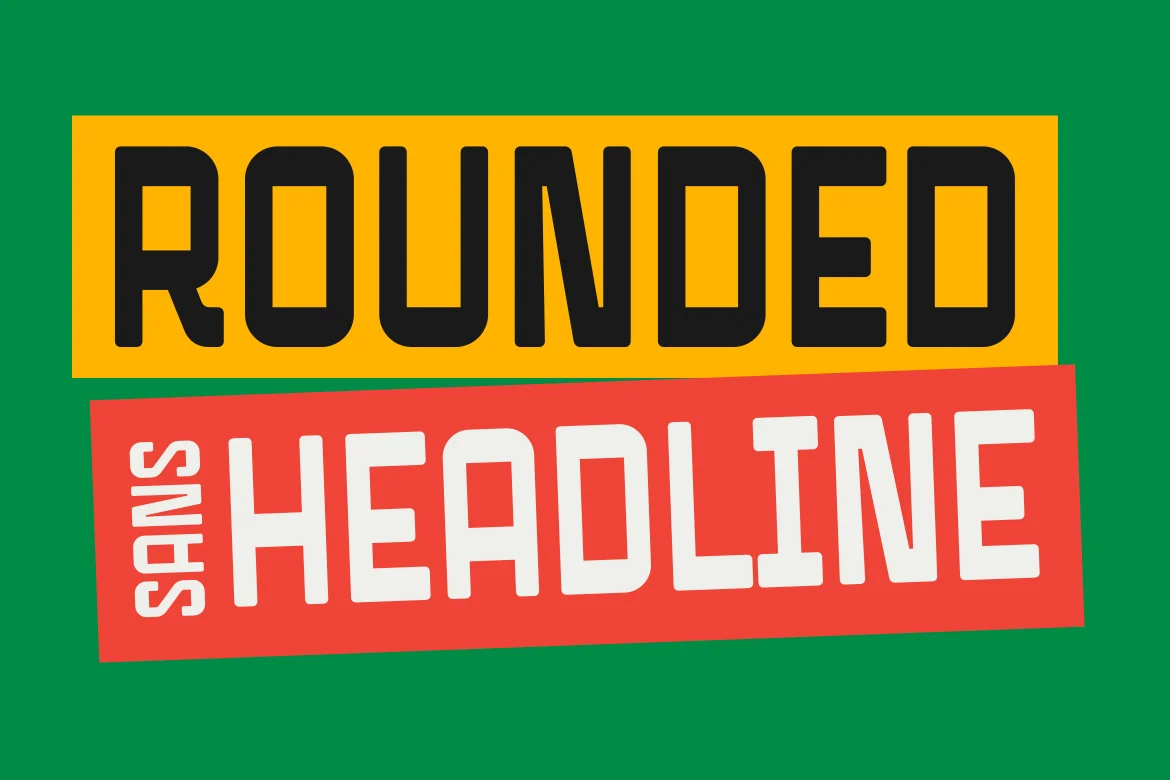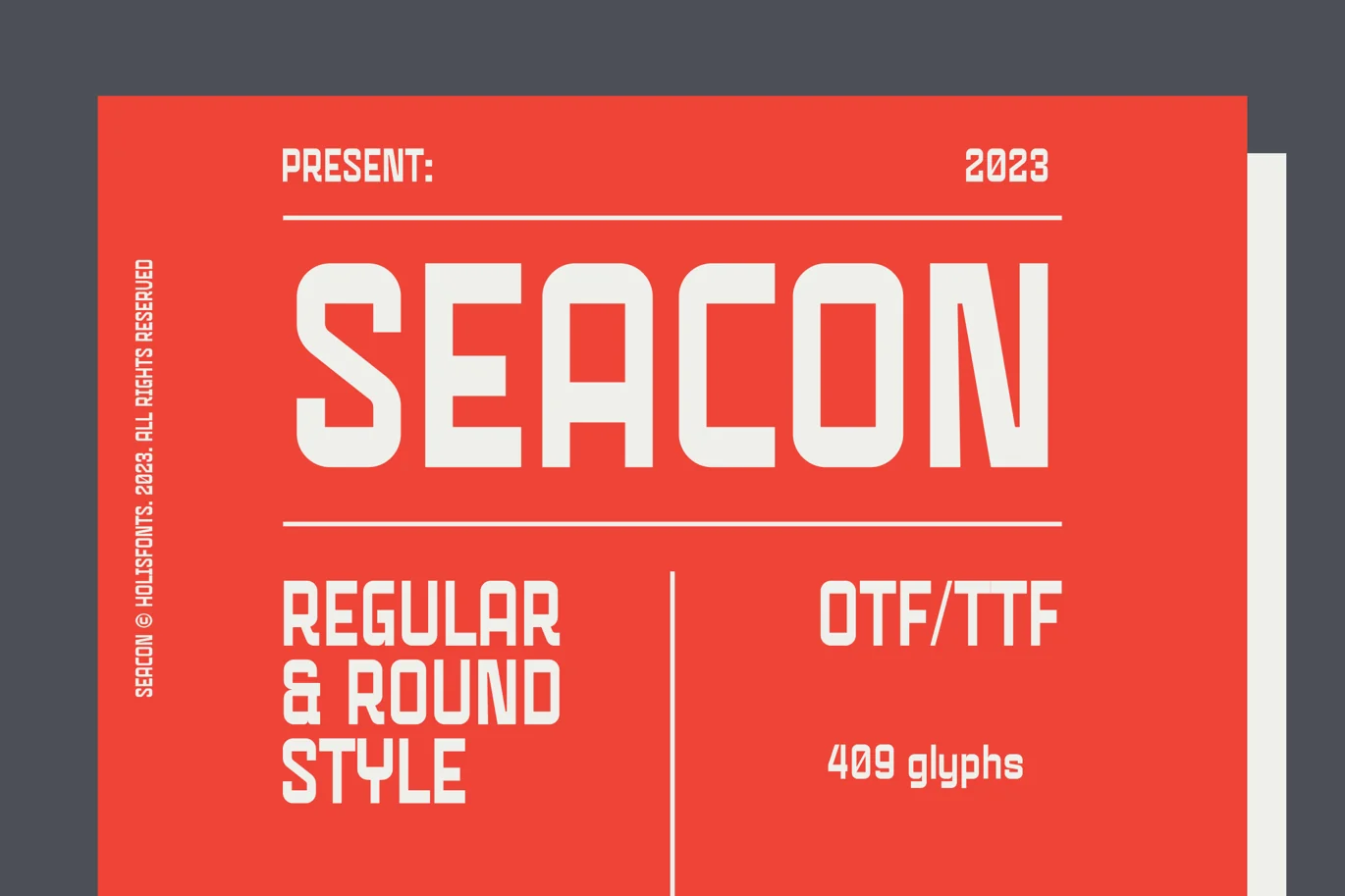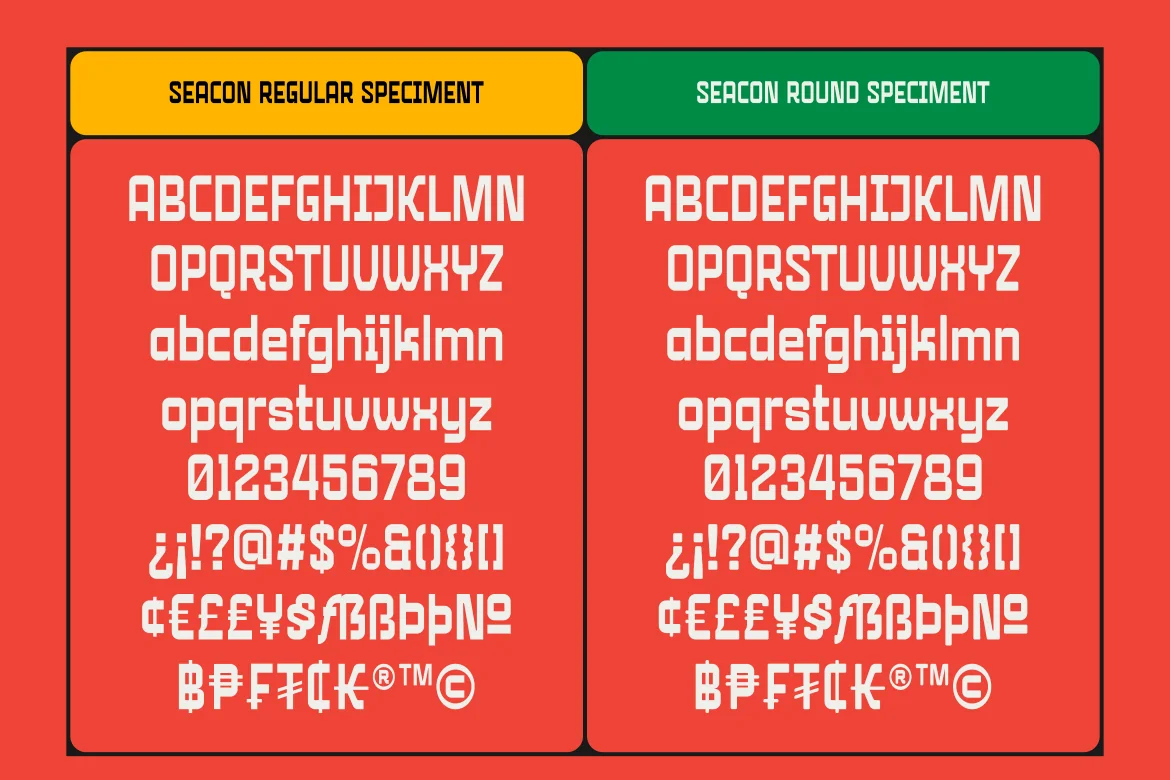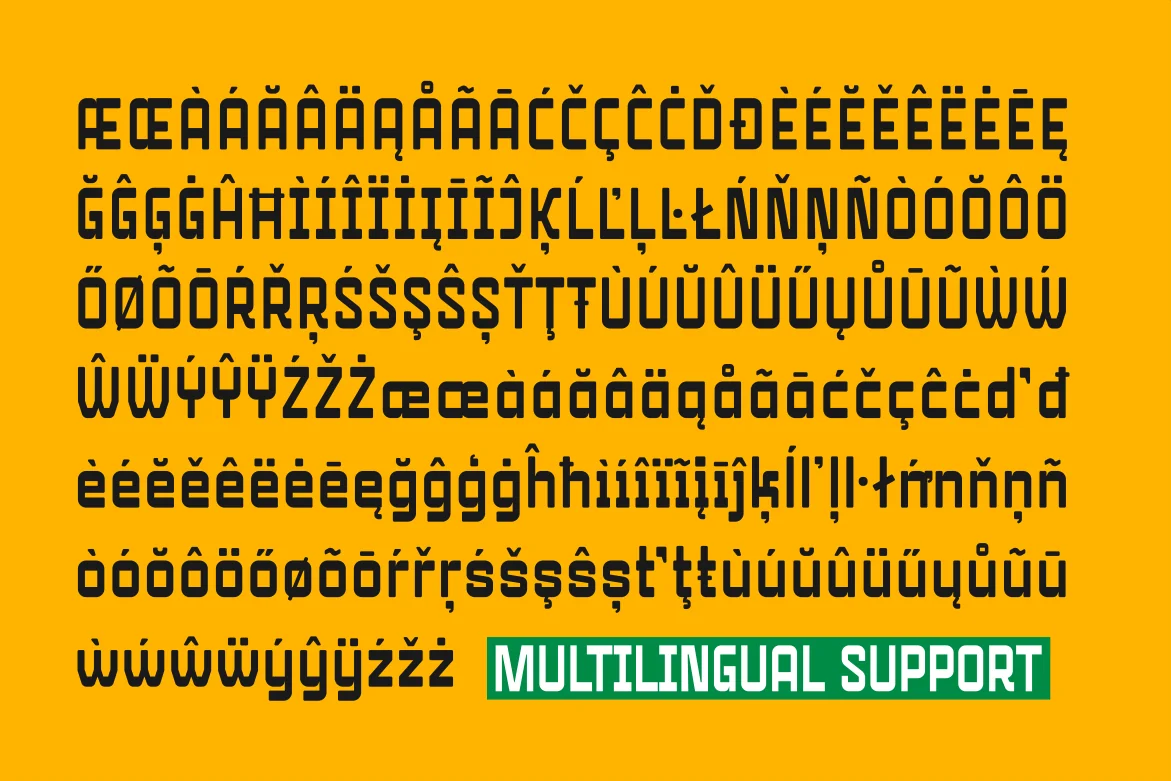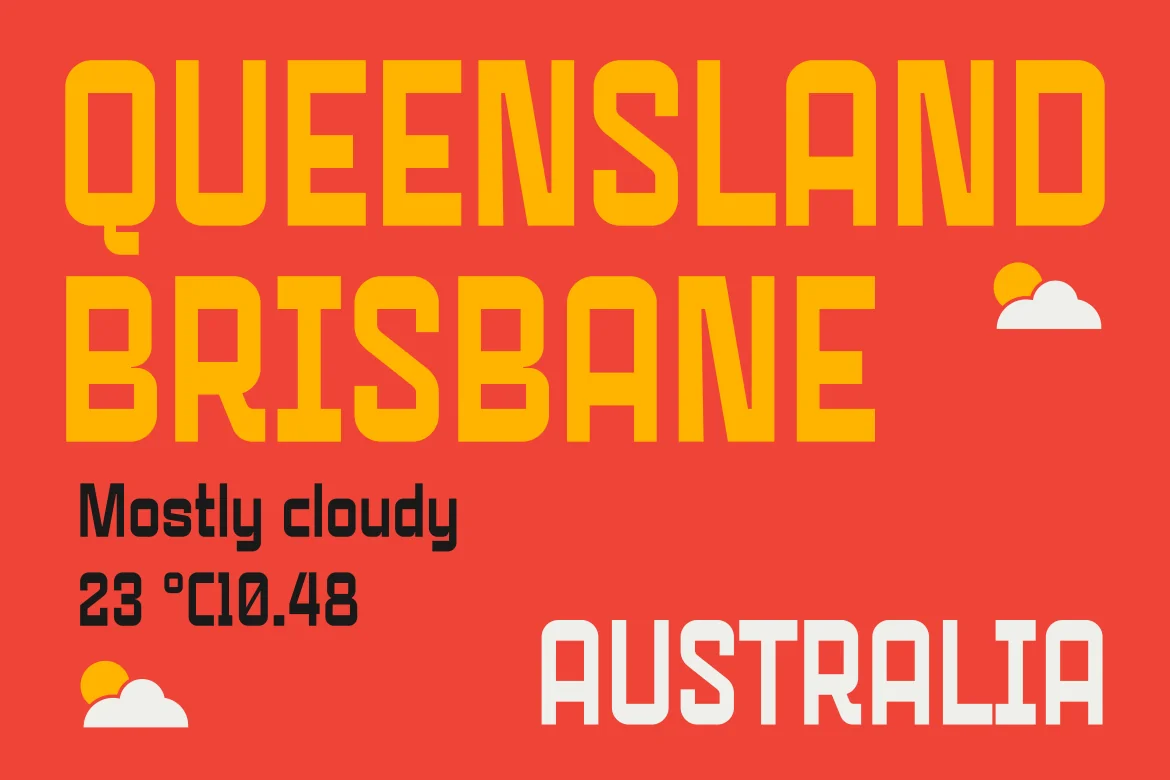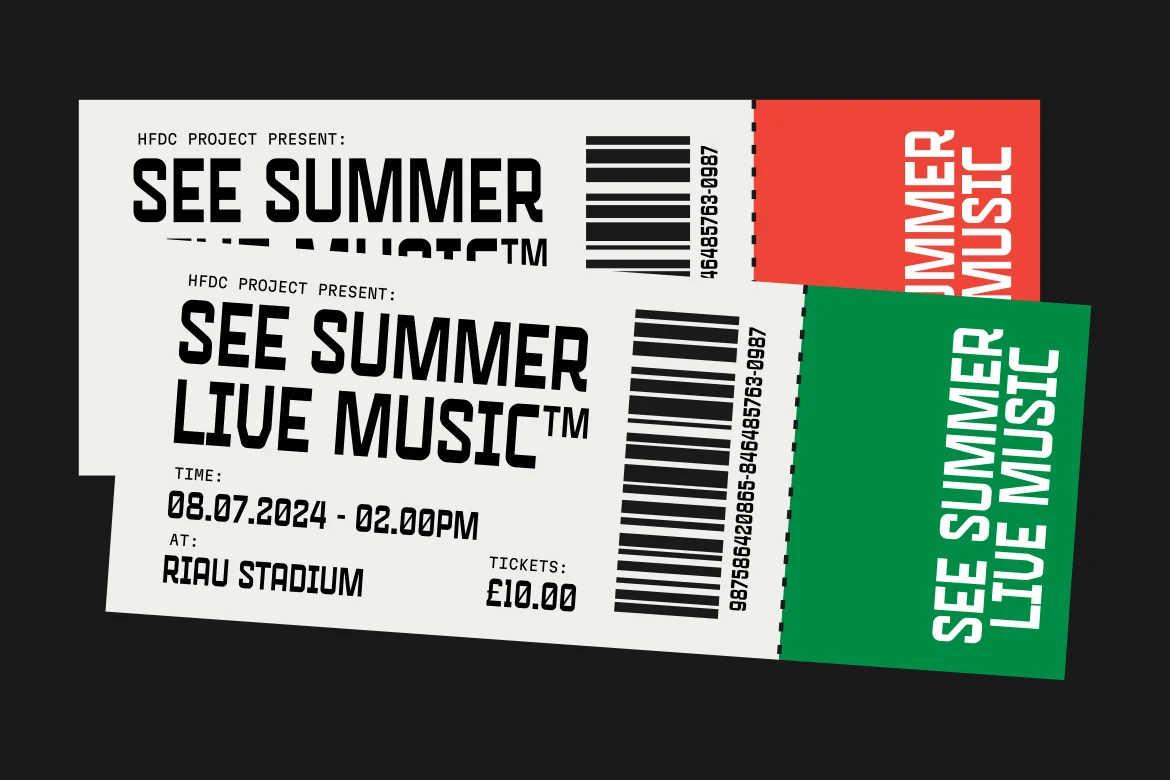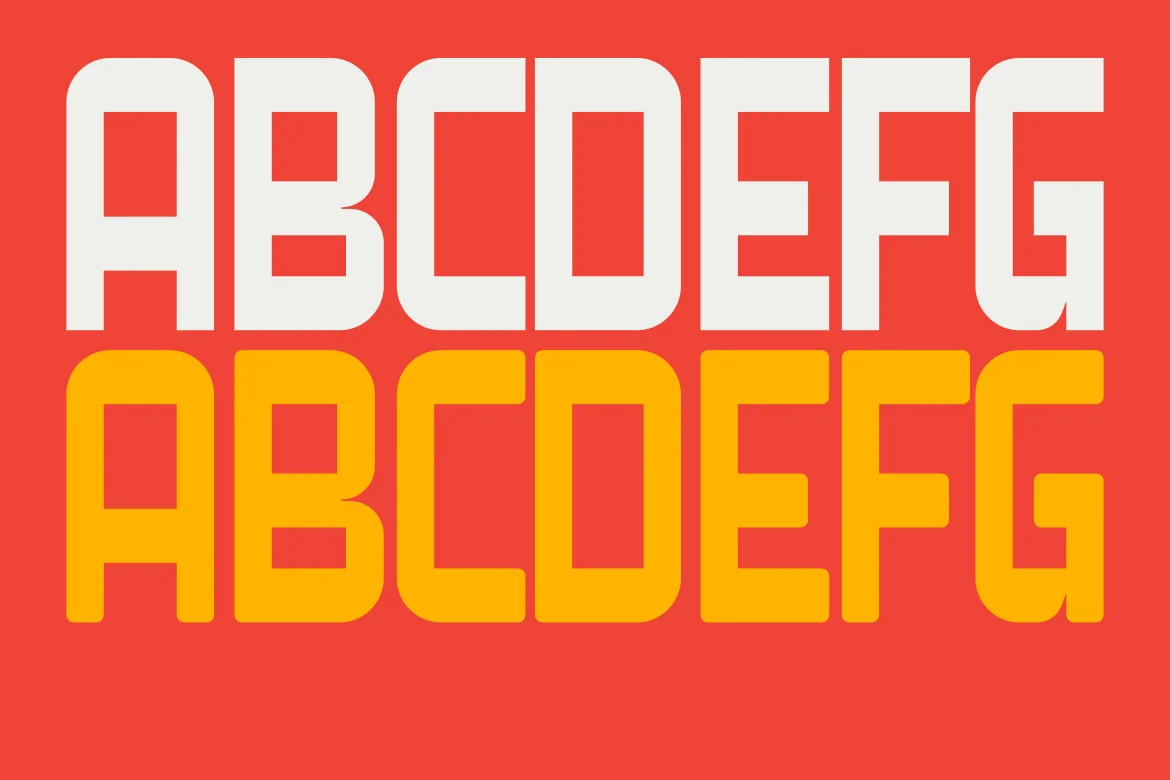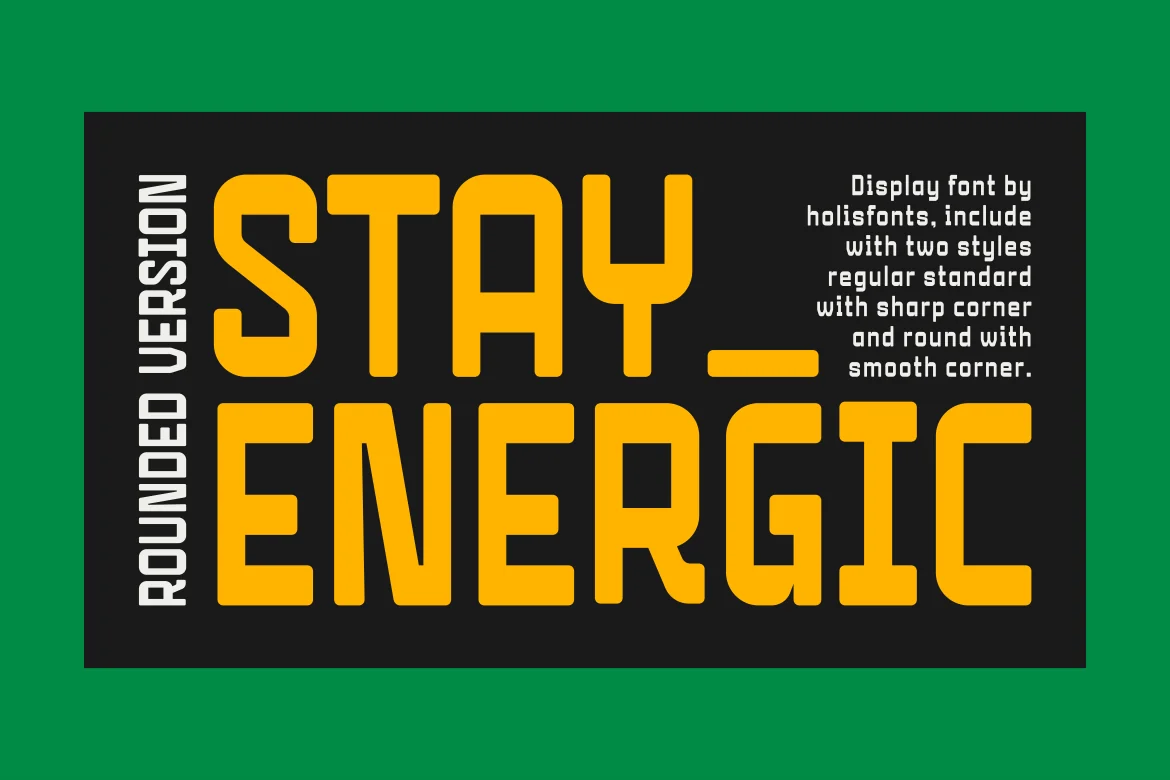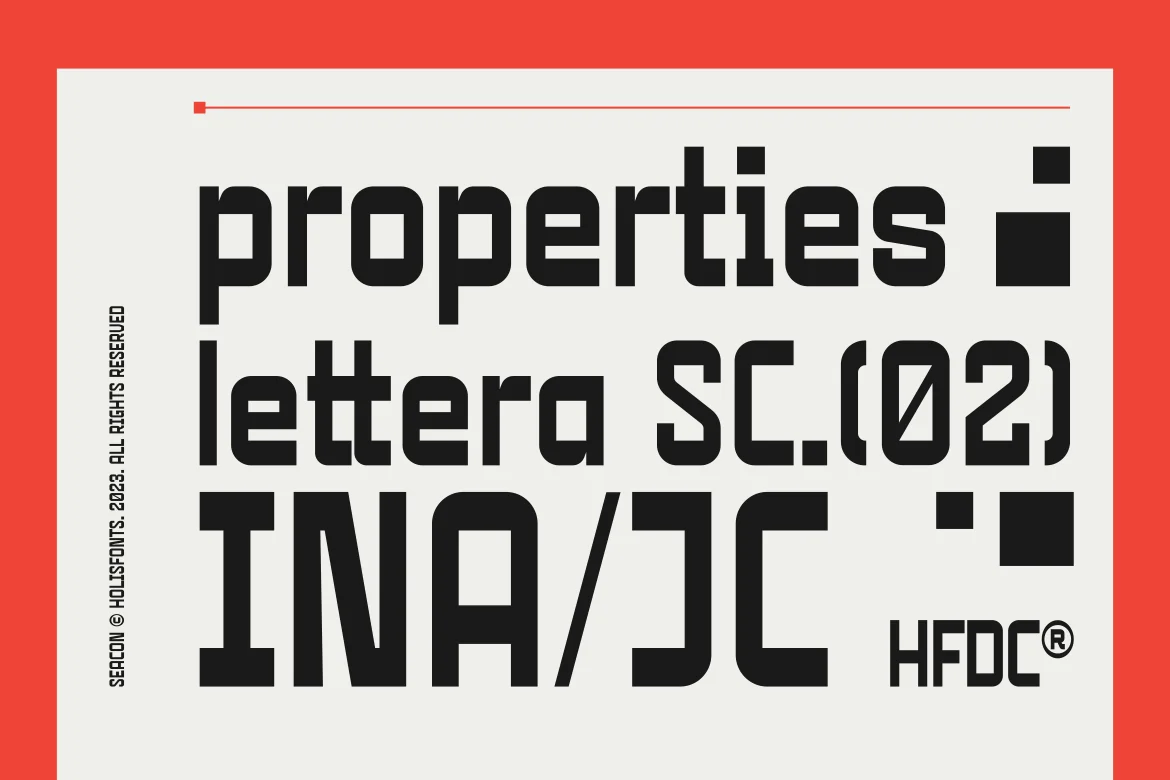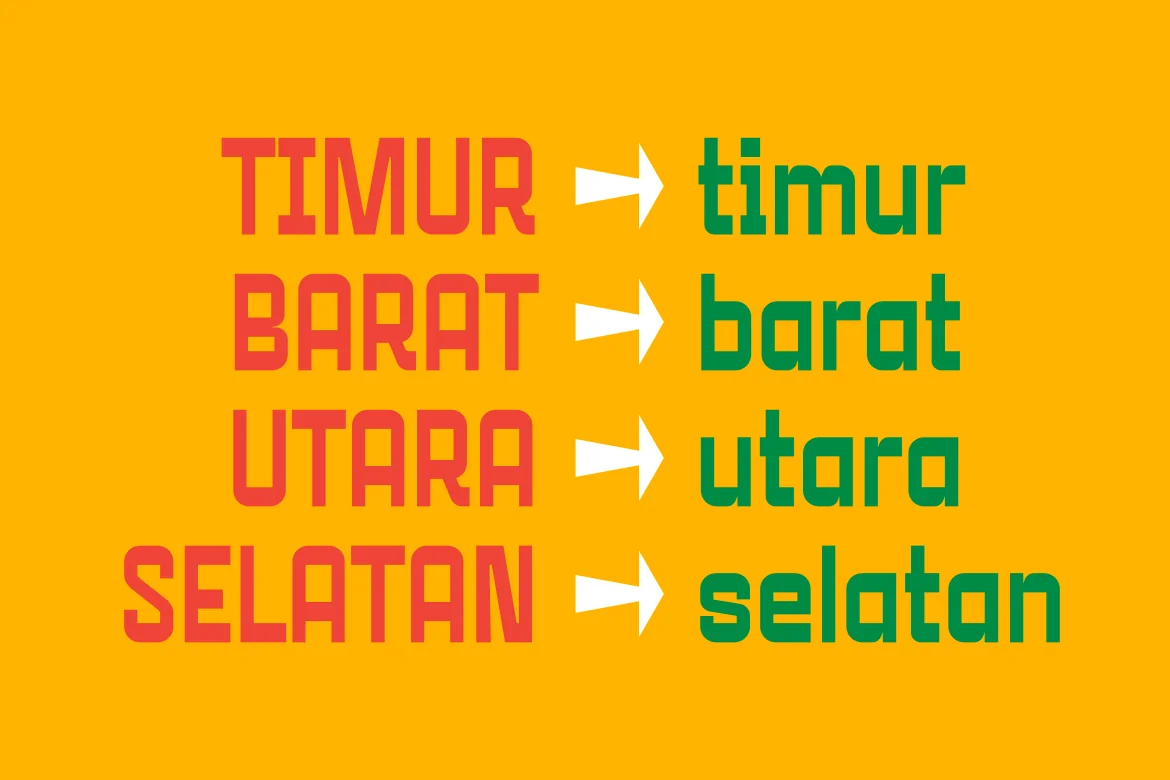
Seacon Headline Bold Font
Seacon inspired by a bold, classic retro font which is suitable for use as a title or headline on a poster or logo and presentation, or as a signboard in your offline shop. This font is available in 2 styles Regular and Round.